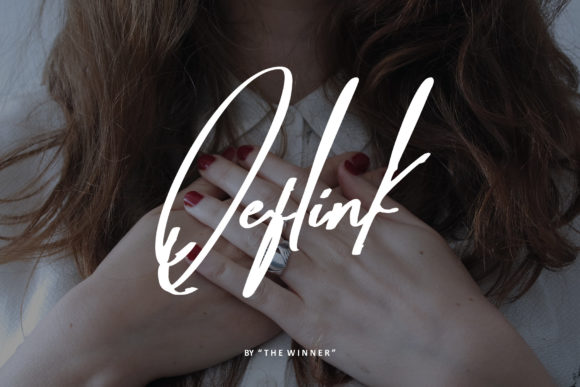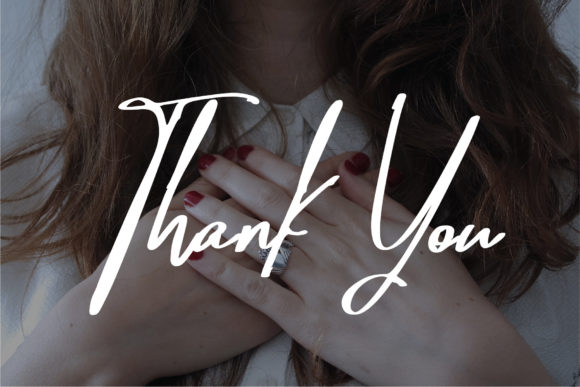
About Qeflink Font
Qeflink is a thin lettered and stylish script font that offers a versatile style suitable for a wide range of design projects. Its elegant and sleek appearance makes it an excellent choice for creating stunning wedding invitations, stationary art, social media posts, and more.
The thin letterforms of Qeflink give it a modern and sophisticated look. The clean and sleek lines add a touch of elegance to any design. Whether you’re creating wedding invitations, greeting cards, or other stationery items, Qeflink can bring a refined and stylish vibe to your designs.
One of the great advantages of Qeflink is its versatility. It can be used in a variety of contexts and design projects. Its thin lettering and stylish aesthetic make it suitable for creating eye-catching social media posts, blog headers, website designs, and much more. With Qeflink, you have the freedom to explore and experiment with different creative ideas.
Qeflink’s versatility is further enhanced by its ability to adapt to various design themes and aesthetics. Whether you’re aiming for a minimalist and modern look or a more whimsical and playful style, Qeflink can complement your vision. Its stylish script lettering adds a touch of charm and sophistication to your designs.
With Qeflink, you can easily create visually captivating and attention-grabbing designs. Its thin letterforms and stylish curves make it stand out and leave a lasting impression. It can be an excellent choice for logos, branding materials, and any project that requires an elegant and contemporary touch.
In conclusion, Qeflink is a thin lettered and stylish script font that offers versatility and elegance. It can be used for a variety of design projects, from wedding invitations to social media posts. Let Qeflink inspire your creativity and bring a touch of sophistication to your designs.